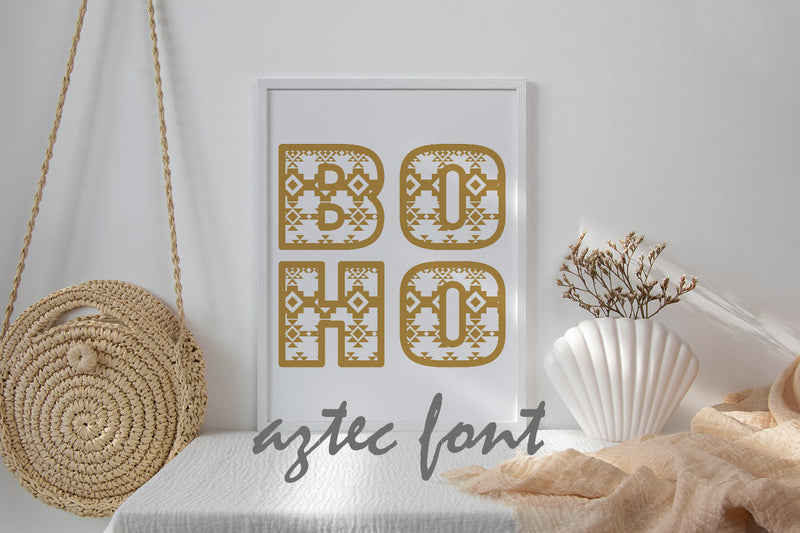
Boho Aztec Font
Boho Aztec Font is an adorable font with split letters suitable for digital projects, cards, invitations, weddings, logos, kids monograms, website or crafts projects. Includes .otf. Perfect for magazine, news papers, posters, in branding, headers, invitations and save the dates, flyers, packaging, bags and so much more.